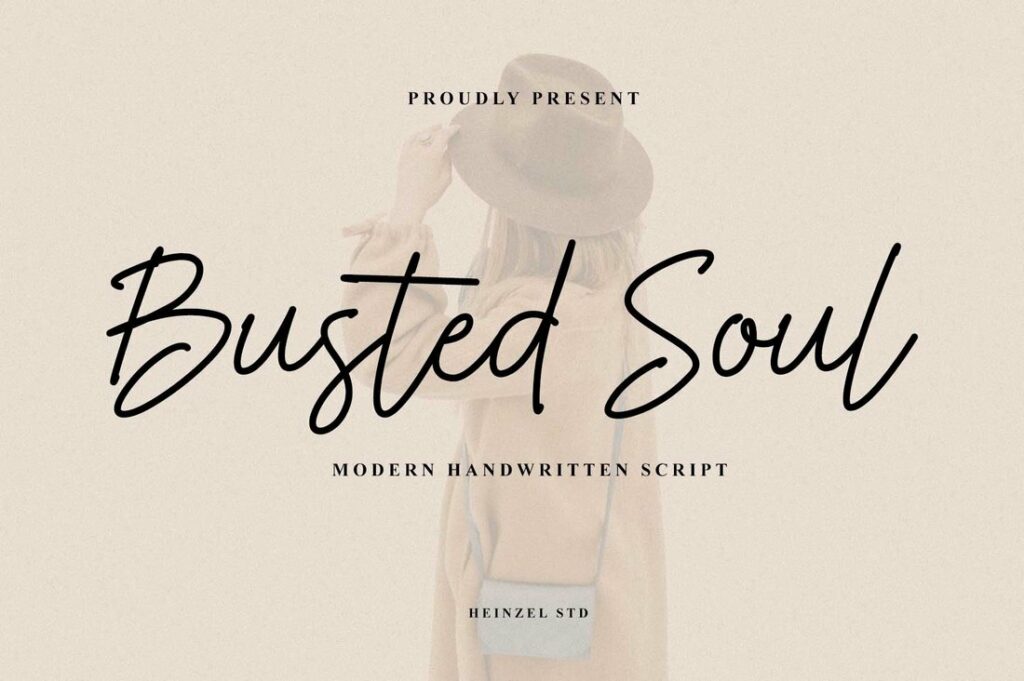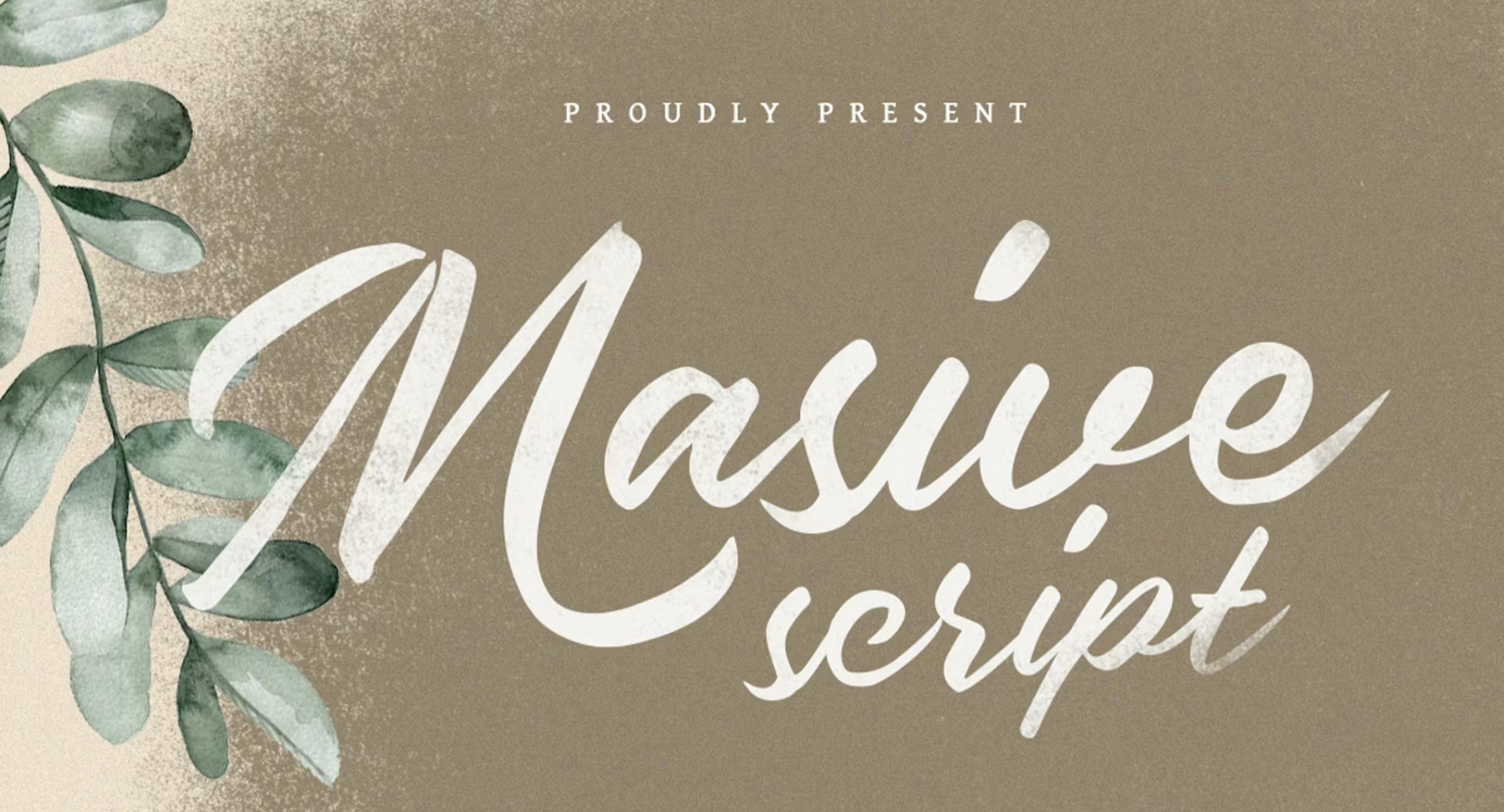
Best Font For Quotes . Discover the best fonts for quotes. Explore cursive, bold, and script fonts for inspirational, motivational, and romantic. In this journey through the 15 best fonts for quotes, we’ve explored how typography can elevate the impact of your words. Find the perfect fonts for quotes designs with this collection of handwritten, script, brush, and decorative fonts. Explore script, handwritten, sans serif,. Learn how to choose the right font for your quotes based on legibility, tone, and style. Learn how to choose the best fonts for quotes based on their style, personality, and purpose. See examples and links to download fonts like baddest, handline, calm quote, and more. Explore 20 inspiring fonts for quotes, from script to display, and see examples of how to use them for crafts, posters, and cards. From elegant handwritten scripts to bold and impactful serifs, these fonts will add style and. Find the best fonts for quotes to enhance their impact, reflect various emotions, and suit different themes. Learn how to pick the right font for different types of quotes based on size, format, and readability. Whether you’re writing an essay, crafting a social media post, or designing a poster, choosing the right font is key to making your quotes unforgettable.
Learn how to choose the best fonts for quotes based on their style, personality, and purpose. Explore script, handwritten, sans serif,. Find the perfect fonts for quotes designs with this collection of handwritten, script, brush, and decorative fonts. Discover the best fonts for quotes. In this journey through the 15 best fonts for quotes, we’ve explored how typography can elevate the impact of your words. Explore cursive, bold, and script fonts for inspirational, motivational, and romantic. Explore 20 inspiring fonts for quotes, from script to display, and see examples of how to use them for crafts, posters, and cards. Whether you’re writing an essay, crafting a social media post, or designing a poster, choosing the right font is key to making your quotes unforgettable. See examples and links to download fonts like baddest, handline, calm quote, and more. Learn how to pick the right font for different types of quotes based on size, format, and readability.
A List of the Best Aesthetic Fonts for Quotes Hipsthetic
Best Font For Quotes Learn how to pick the right font for different types of quotes based on size, format, and readability. Discover the best fonts for quotes. In this journey through the 15 best fonts for quotes, we’ve explored how typography can elevate the impact of your words. Find the best fonts for quotes to enhance their impact, reflect various emotions, and suit different themes. Whether you’re writing an essay, crafting a social media post, or designing a poster, choosing the right font is key to making your quotes unforgettable. From elegant handwritten scripts to bold and impactful serifs, these fonts will add style and. See examples and links to download fonts like baddest, handline, calm quote, and more. Learn how to pick the right font for different types of quotes based on size, format, and readability. Find the perfect fonts for quotes designs with this collection of handwritten, script, brush, and decorative fonts. Learn how to choose the best fonts for quotes based on their style, personality, and purpose. Explore script, handwritten, sans serif,. Learn how to choose the right font for your quotes based on legibility, tone, and style. Explore 20 inspiring fonts for quotes, from script to display, and see examples of how to use them for crafts, posters, and cards. Explore cursive, bold, and script fonts for inspirational, motivational, and romantic.
Best Font For Quotes See examples and links to download fonts like baddest, handline, calm quote, and more. Find the best fonts for quotes to enhance their impact, reflect various emotions, and suit different themes. Explore script, handwritten, sans serif,. Learn how to choose the best fonts for quotes based on their style, personality, and purpose. Explore cursive, bold, and script fonts for inspirational,. Best Font For Quotes.
22 Canva Fonts for Quotes That Lift, Inspire and Motivate Best Font For Quotes From elegant handwritten scripts to bold and impactful serifs, these fonts will add style and. See examples and links to download fonts like baddest, handline, calm quote, and more. Find the best fonts for quotes to enhance their impact, reflect various emotions, and suit different themes. Find the perfect fonts for quotes designs with this collection of handwritten, script, brush,. Best Font For Quotes.
Best Font For Quotes Explore cursive, bold, and script fonts for inspirational, motivational, and romantic. Learn how to choose the right font for your quotes based on legibility, tone, and style. Discover the best fonts for quotes. Explore script, handwritten, sans serif,. Whether you’re writing an essay, crafting a social media post, or designing a poster, choosing the right font is key to making. Best Font For Quotes.
Best Font For Quotes Explore 20 inspiring fonts for quotes, from script to display, and see examples of how to use them for crafts, posters, and cards. Explore script, handwritten, sans serif,. Find the perfect fonts for quotes designs with this collection of handwritten, script, brush, and decorative fonts. Discover the best fonts for quotes. In this journey through the 15 best fonts for. Best Font For Quotes.
Best Font For Quotes Explore 20 inspiring fonts for quotes, from script to display, and see examples of how to use them for crafts, posters, and cards. See examples and links to download fonts like baddest, handline, calm quote, and more. Discover the best fonts for quotes. From elegant handwritten scripts to bold and impactful serifs, these fonts will add style and. Find the. Best Font For Quotes.
Best Font For Quotes Learn how to choose the right font for your quotes based on legibility, tone, and style. Explore script, handwritten, sans serif,. Find the perfect fonts for quotes designs with this collection of handwritten, script, brush, and decorative fonts. From elegant handwritten scripts to bold and impactful serifs, these fonts will add style and. Learn how to choose the best fonts. Best Font For Quotes.
The Best Fonts for Quotes (30 Top Picks) Best Font For Quotes Explore script, handwritten, sans serif,. See examples and links to download fonts like baddest, handline, calm quote, and more. Learn how to choose the right font for your quotes based on legibility, tone, and style. Explore 20 inspiring fonts for quotes, from script to display, and see examples of how to use them for crafts, posters, and cards. Discover the. Best Font For Quotes.
A List of the Best Aesthetic Fonts for Quotes Hipsthetic Best Font For Quotes Find the perfect fonts for quotes designs with this collection of handwritten, script, brush, and decorative fonts. Discover the best fonts for quotes. Learn how to choose the right font for your quotes based on legibility, tone, and style. Explore cursive, bold, and script fonts for inspirational, motivational, and romantic. Whether you’re writing an essay, crafting a social media post,. Best Font For Quotes.
Best Font For Quotes Whether you’re writing an essay, crafting a social media post, or designing a poster, choosing the right font is key to making your quotes unforgettable. Explore script, handwritten, sans serif,. Learn how to choose the best fonts for quotes based on their style, personality, and purpose. Discover the best fonts for quotes. See examples and links to download fonts like. Best Font For Quotes.